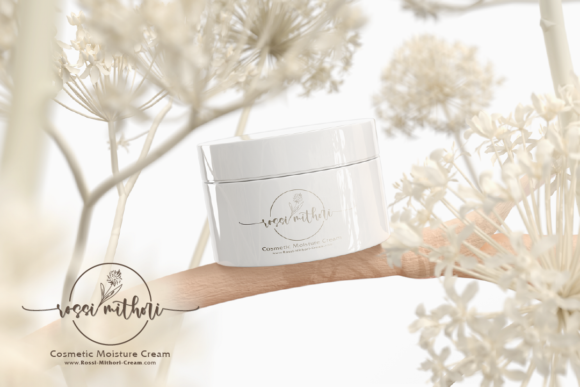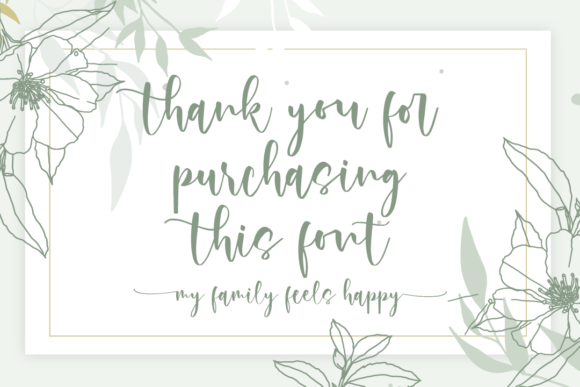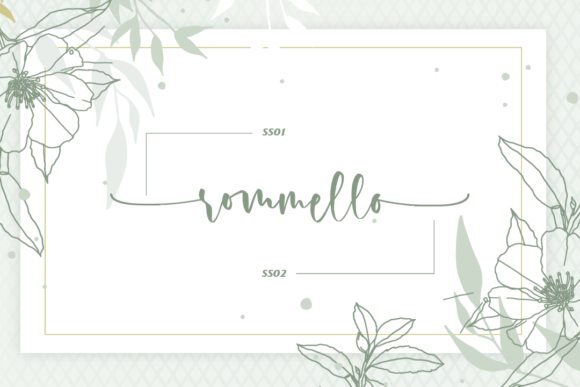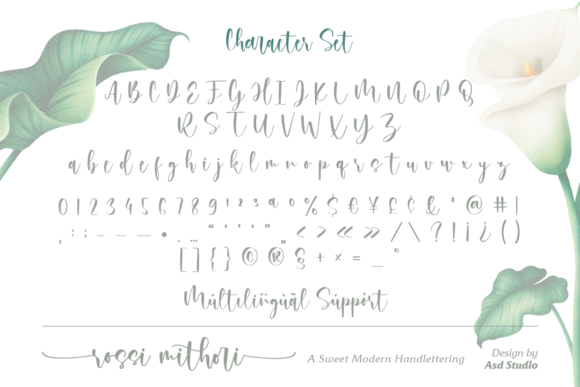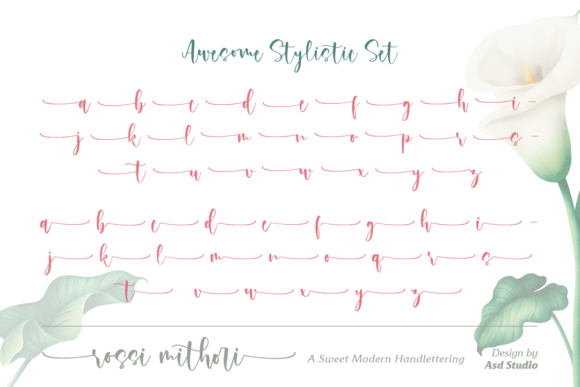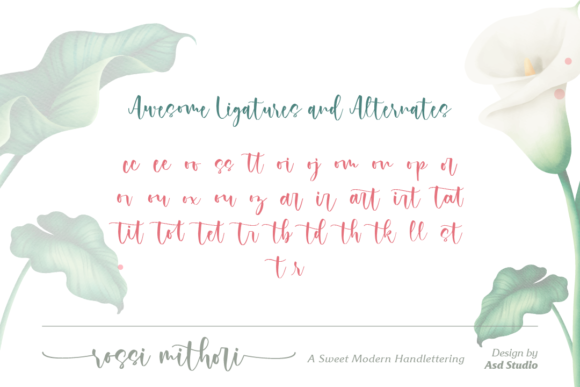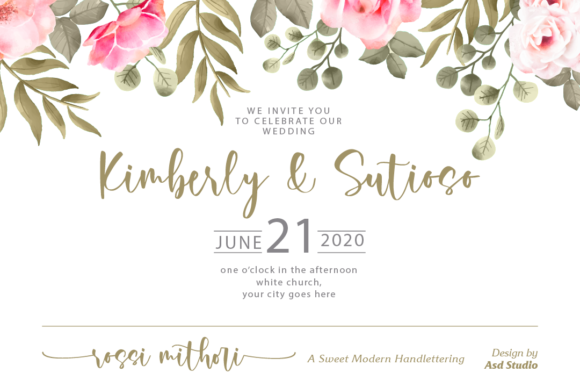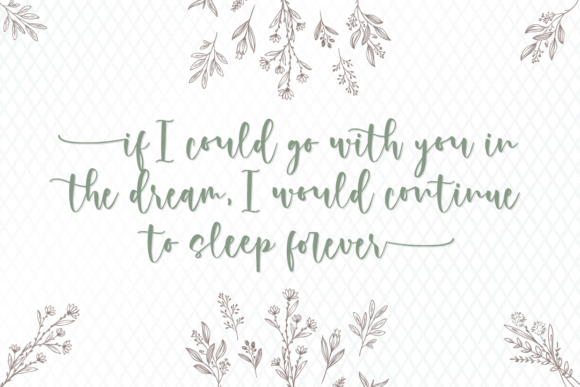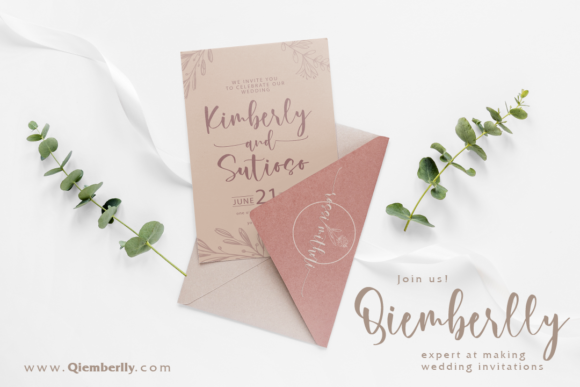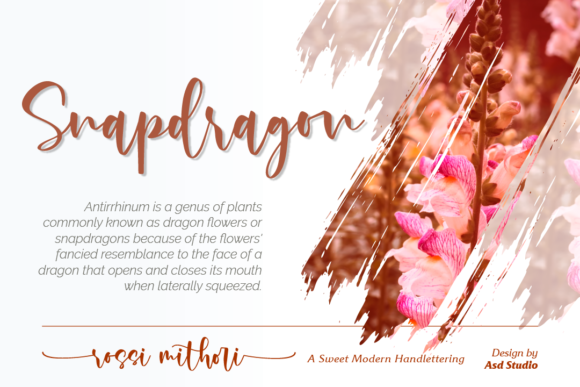
Rossi Mithori Font
About Rossi Mithori Font
Rossi Mithori is a beautiful combination of timeless elegance and authentic calligraphy. It features an incredibly classic style, while still keeping a friendly feel. Get inspired by its authentic feel and use it to create gorgeous wedding invitations, beautiful stationary art, eye-catching social media posts, and cute greeting cards.